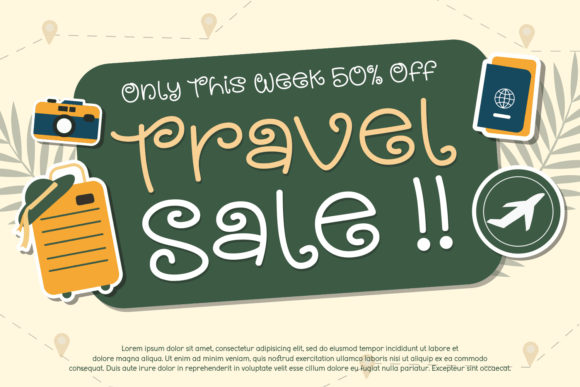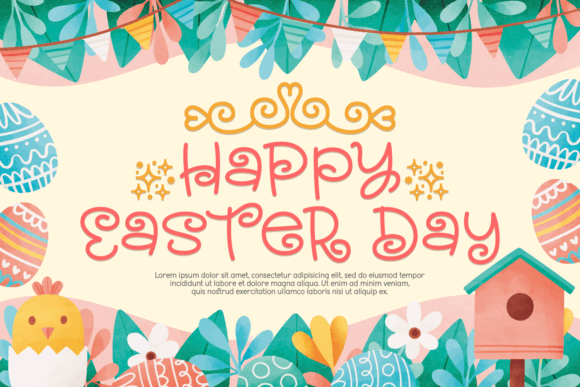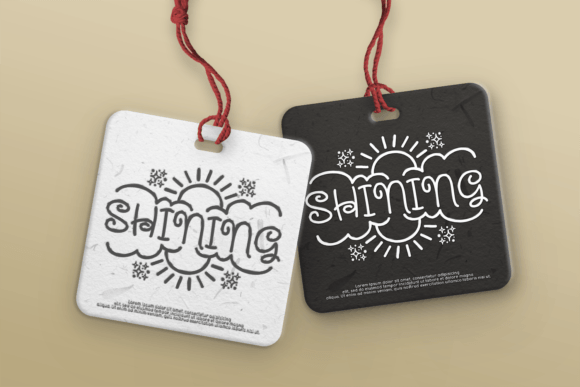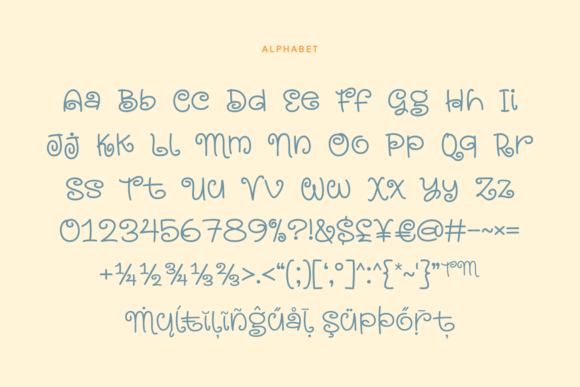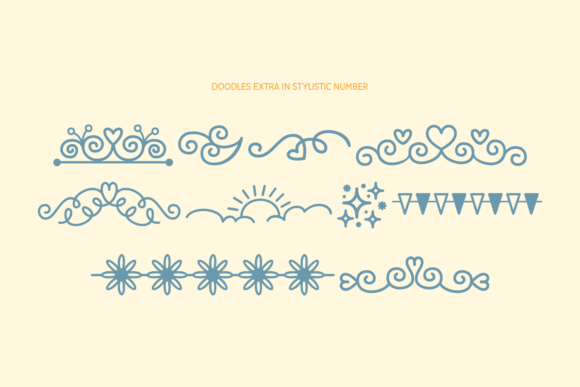
Gergous Holiday Font: The Perfect Addition to Your Girly Design Collection
Are you a designer or crafter looking for a unique and eye-catching font to add to your collection? Look no further than the Gergous Holiday Font! This funky and swirly display font is perfect for creating a wide range of girly designs that are sure to stand out. In this article, we’ll take a closer look at the Gergous Holiday Font and explore the many ways you can use it to take your designs to the next level.
What is Gergous Holiday Font?
Gergous Holiday Font is a display font designed specifically for use in creative projects. Its unique blend of swirly and curly lines makes it perfect for adding a touch of femininity and whimsy to any design. The font is highly versatile and can be used for a wide range of applications, from t-shirt designs and baby onesies to nursery decorations and digital designs.
Key Features of Gergous Holiday Font
So, what makes Gergous Holiday Font so special? Here are just a few of its key features:
- Funky and Swirly Design: The Gergous Holiday Font features a unique blend of swirly and curly lines that give it a distinctly feminine and playful feel.
- Highly Versatile: This font can be used for a wide range of applications, from t-shirt designs and baby onesies to nursery decorations and digital designs.
- Easy to Read: Despite its playful design, the Gergous Holiday Font is highly legible and easy to read, making it perfect for use in titles, headings, and other display text.
Uses for Gergous Holiday Font
So, how can you use the Gergous Holiday Font in your designs? Here are just a few ideas to get you started:
- T-Shirt Designs: Add a touch of whimsy and femininity to your t-shirt designs with the Gergous Holiday Font. Perfect for creating unique and eye-catching designs for women’s clothing.
- Baby Onesies: Create adorable and playful designs for baby onesies using the Gergous Holiday Font. A great way to add a personal touch to baby gifts or nursery decorations.
- Nursery Decorations: Use the Gergous Holiday Font to create custom nursery decorations, such as wall art, decals, and other decorative items.
- Digital Designs: Add a touch of elegance and sophistication to your digital designs, such as social media graphics, blog posts, and other online content.
- Cards and Stationery: Use the Gergous Holiday Font to create custom cards, invitations, and other stationery items that are sure to stand out.
Tips for Using Gergous Holiday Font
Here are a few tips for getting the most out of the Gergous Holiday Font:
- Experiment with Different Colors: The Gergous Holiday Font looks great in a wide range of colors, so don’t be afraid to experiment and find the perfect combination for your design.
- Pair with Other Fonts: Try pairing the Gergous Holiday Font with other fonts to create a unique and eye-catching design.
- Use for Headings and Titles: The Gergous Holiday Font is perfect for use in headings and titles, where its playful design can really make an impact.
In conclusion, the Gergous Holiday Font is a versatile and eye-catching font that’s perfect for designers and crafters looking to add a touch of whimsy and femininity to their designs. With its unique blend of swirly and curly lines, this font is sure to stand out in any design. Whether you’re creating t-shirt designs, baby onesies, nursery decorations, or digital designs, the Gergous Holiday Font is a great choice. So why wait? Download the Gergous Holiday Font today and start taking your designs to the next level!